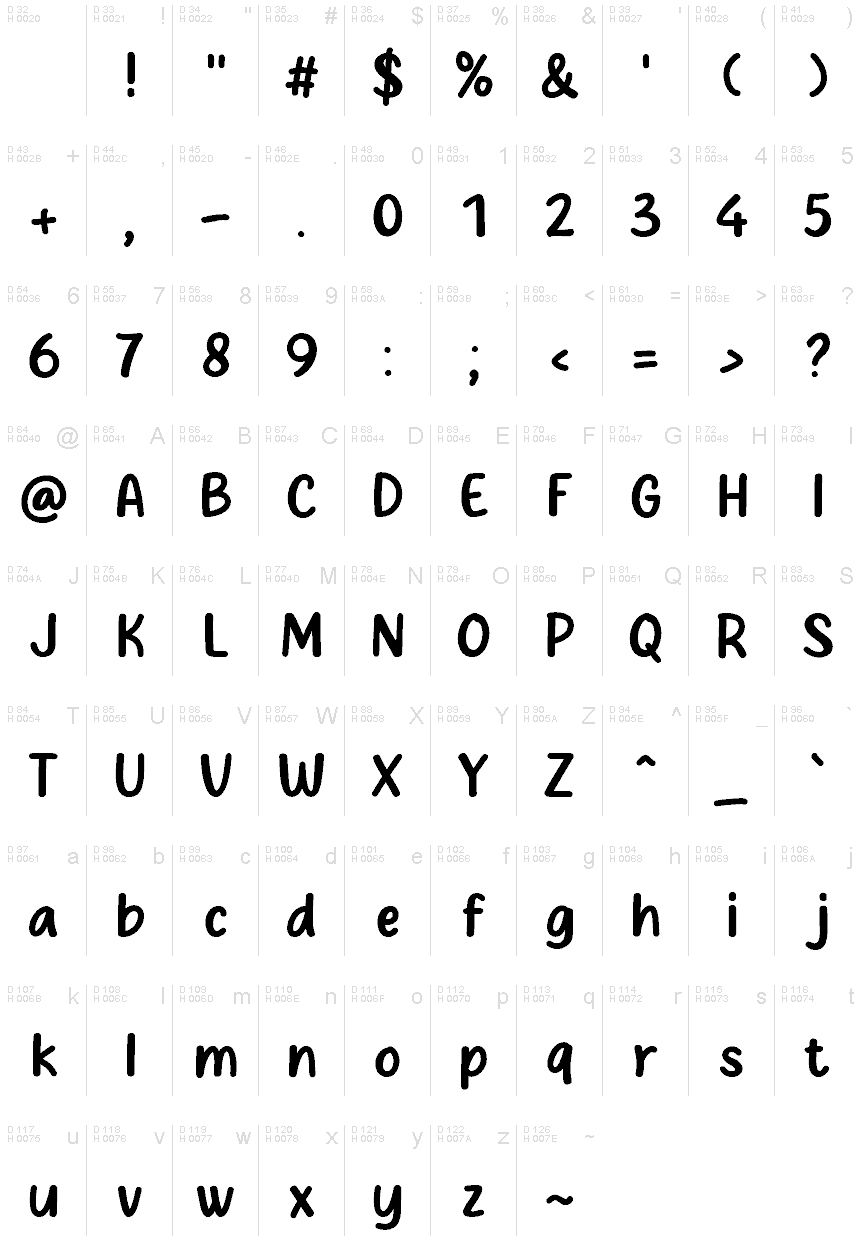
Magic Sky
Magic Sky font by MJType is a free handwritten font with a friendly and modern appearance. The approachable letters may appear casual and informal at first glance, but professional designers will immediately spot how their well proportionate letters harmoniously work together. The body of the font is kept light while also having just enough bold to visibly stand out in unique branding projects.
Magic Sky can be used as a casual and informal display font which only leaves out use cases that require extensive body text. Use it for captions, headings and subheadings, tattoo designs, digital graphics, logo design, cartoon intros or other typography trends that are most fit for the year 2023!